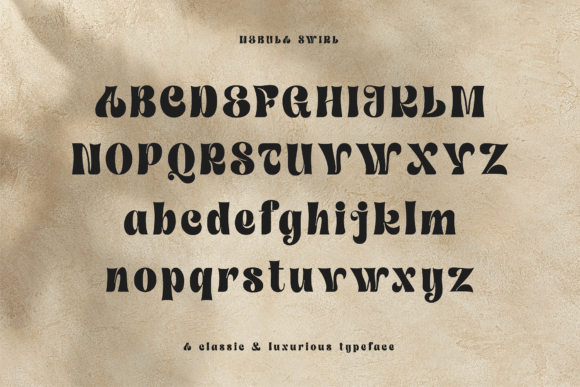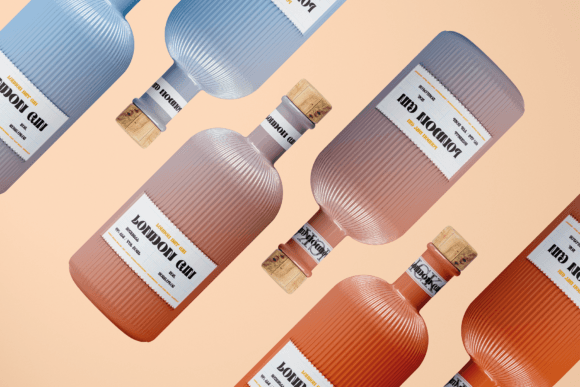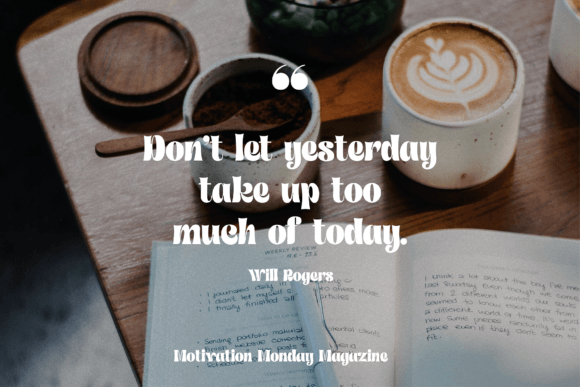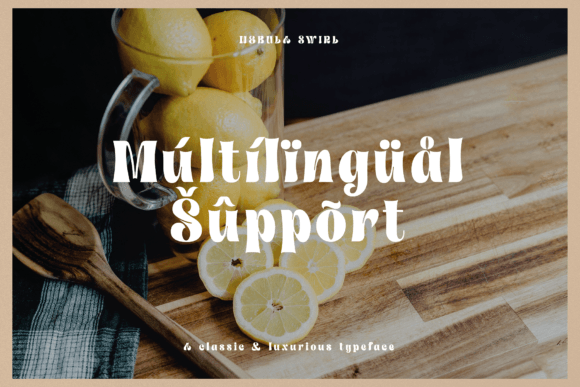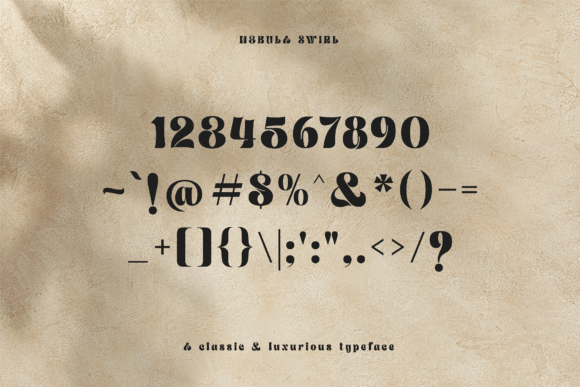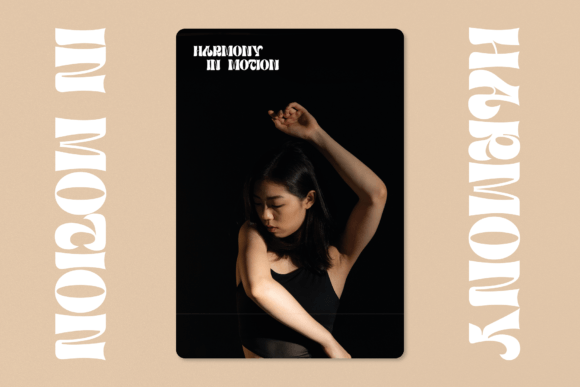
Introduction to Nebula Swirl Font
As a designer, have you ever been in the middle of a creative project, staring at a blank canvas, and suddenly, a spark of inspiration hits you? The words start flowing, the ideas start pouring in, and before you know it, your project takes shape. For designers, this moment is pure magic. And that’s exactly what the Nebula Swirl Font is all about – capturing that essence of creativity and bringing it to life.
This beautiful, modern font is more than just a design resource – it’s a statement piece that demands attention. With its captivating wavy shapes and smooth edges, the Nebula Swirl Font is sure to elevate any design project. Whether you’re working on a logo, a brochure, or a website, this high-quality font is the perfect addition to your design arsenal.
Key Features of Nebula Swirl Font
- Unique, cosmic-inspired design ideal for creative projects and futuristic themes.
- High-quality font with a transparent background, allowing for seamless integration with any design.
- Perfect for designers looking for a bold and eye-catching font to elevate their creative project.
Honest Review: Nebula Swirl Font
I recently had the chance to experiment with the Nebula Swirl Font, and I must say it’s a fantastic addition to any creative project. The font’s unique, swirly design makes it perfect for adding a touch of cosmic whimsy to your work. One of its standout features is the transparent background, which allows you to easily blend it with other design elements. I also appreciate that it’s available for free download, making it an excellent resource for designers on a budget.
However, there are a few limitations to consider: ⚠️ Limited font size options, ⚠️ May not be suitable for all types of projects (e.g. body text), and ⚠️ Could be overwhelming in large quantities.
Overall, I’m really impressed with the Nebula Swirl Font. It’s a fun and creative design resource that’s perfect for adding a touch of personality to your work. Just be mindful of its limitations, and use it thoughtfully in your design projects.
The Nebula Swirl Font is ideal for creative projects that require a touch of sophistication and elegance. Use it in logo designs, branding materials, and marketing materials to make a lasting impression on your audience.